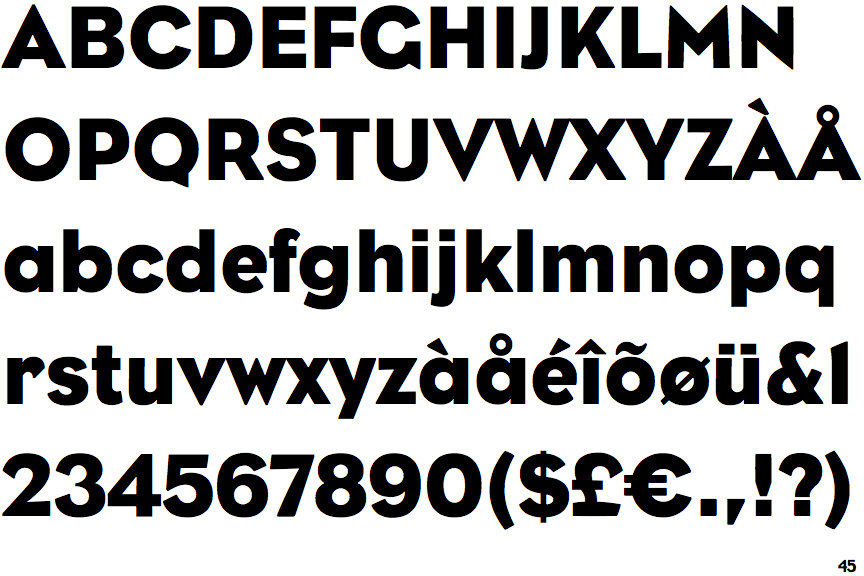
Font Eagle Bold
Font Eagle Bold - Benton, include the number of glyphs 203. Examples of this font can be found on the font site exfont, designed by m.f. This font features bold, geometric letterforms with a strong presence. A bold, geometric font with a modern and assertive style.
A bold, geometric font with a modern and assertive style. Benton, include the number of glyphs 203. Examples of this font can be found on the font site exfont, designed by m.f. This font features bold, geometric letterforms with a strong presence.
Benton, include the number of glyphs 203. Examples of this font can be found on the font site exfont, designed by m.f. A bold, geometric font with a modern and assertive style. This font features bold, geometric letterforms with a strong presence.
Benton, include the number of glyphs 203. This font features bold, geometric letterforms with a strong presence. A bold, geometric font with a modern and assertive style. Examples of this font can be found on the font site exfont, designed by m.f.
Benton, include the number of glyphs 203. This font features bold, geometric letterforms with a strong presence. Examples of this font can be found on the font site exfont, designed by m.f. A bold, geometric font with a modern and assertive style.
Examples of this font can be found on the font site exfont, designed by m.f. A bold, geometric font with a modern and assertive style. This font features bold, geometric letterforms with a strong presence. Benton, include the number of glyphs 203.
A bold, geometric font with a modern and assertive style. Benton, include the number of glyphs 203. This font features bold, geometric letterforms with a strong presence. Examples of this font can be found on the font site exfont, designed by m.f.
Examples of this font can be found on the font site exfont, designed by m.f. A bold, geometric font with a modern and assertive style. This font features bold, geometric letterforms with a strong presence. Benton, include the number of glyphs 203.
Examples of this font can be found on the font site exfont, designed by m.f. A bold, geometric font with a modern and assertive style. Benton, include the number of glyphs 203. This font features bold, geometric letterforms with a strong presence.
Benton, include the number of glyphs 203. A bold, geometric font with a modern and assertive style. Examples of this font can be found on the font site exfont, designed by m.f. This font features bold, geometric letterforms with a strong presence.
This Font Features Bold, Geometric Letterforms With A Strong Presence.
Examples of this font can be found on the font site exfont, designed by m.f. Benton, include the number of glyphs 203. A bold, geometric font with a modern and assertive style.